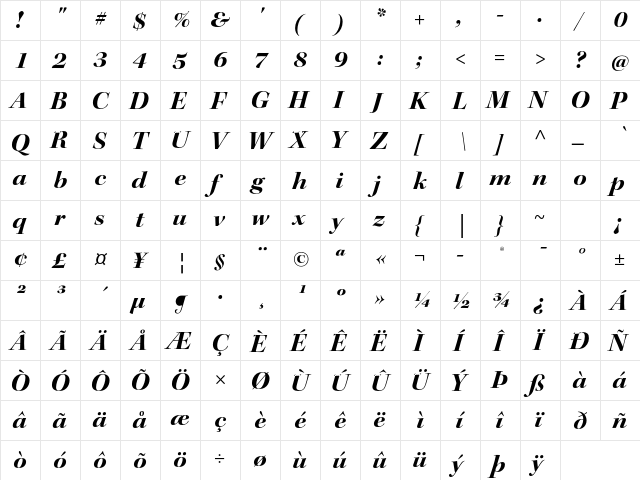
Kepler Std Bold Extended Italic Display Font Preview
Kepler Std Bold Extended Italic Display
Kepler Std Bold Extended Italic Display Font Details
| Style | Bold Extended Italic Display |
| Designer | Robert Slimbach |
Design Context for Kepler Std Typeface
Kepler Std brings ornamental detail and strong personality to headlines and identities, where visual impact matters more than quiet functionality. The slanted form adds forward momentum and visual energy. The heavy weight commands attention and anchors typographic hierarchies.
Font Pairing: Pair with a clean neutral sans-serif for body copy to let Kepler Std's character lead without overwhelming the composition.
Pro Tip: Treat Kepler Std as the centrepiece of your typographic hierarchy. One strong heading set in a decorative face can carry an entire layout.